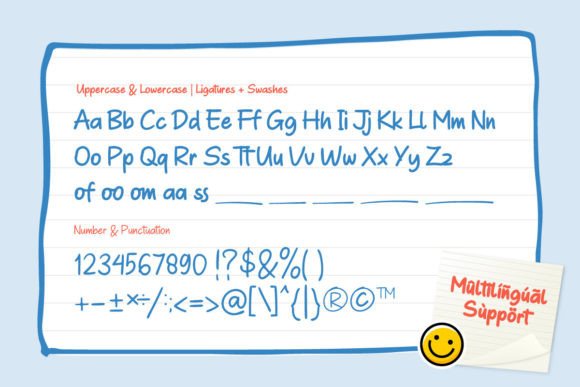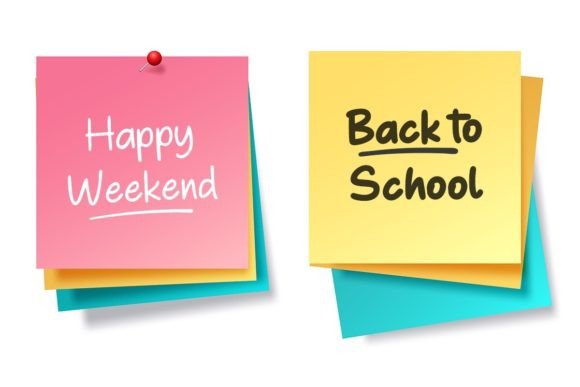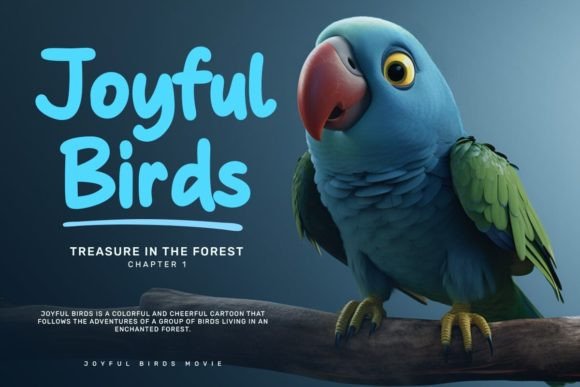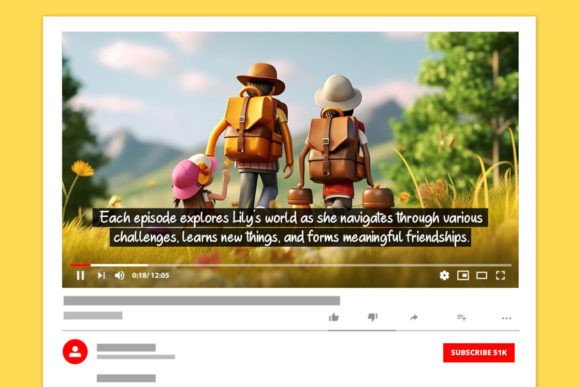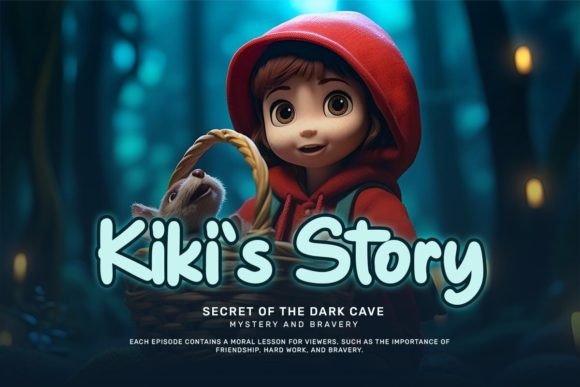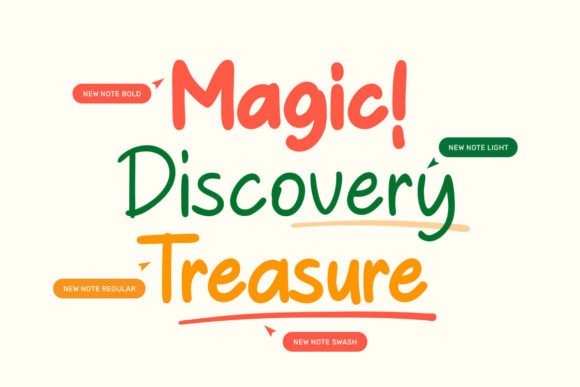
Unlock the Charm of Handwritten Notes with Bebas Note Font
Who hasn’t scribbled down notes by hand, watching as the words begin to take shape on the page? It’s a moment of pure creativity, a chance to connect with the text on a deeper level. And now, you can capture that essence with Bebas Note Font, a beautifully designed handwritten marker font that brings a touch of personalized charm to your projects.
This versatile font is perfect for designers looking to add a genuine hand-drawn feel to their work. With its smooth flow and natural elegance, Bebas Note Font is an excellent choice for a wide range of graphic projects, from digital notes and quote designs to book covers, logos, posters, and more.
Bebas Note Font Key Features
- Unique Characteristics: Bebas Note features a bold and modern sans-serif design, making it suitable for headings, titles, and display text
Bebas Note Font Review
I recently had the chance to work with Bebas Note Font, and I must say, it’s an interesting addition to any design project. ✨ One of the things that stood out to me was its unique, handwritten feel. The font is perfect for projects that need a personal, creative touch.
- Unique feel: Bebas Note Font has a distinct, handwritten style that sets it apart from more traditional fonts.
- Customization options: The font includes a range of styles, from light to bold, which makes it versatile for use in various design contexts.
- Legibility: The font is generally easy to read, even in smaller sizes.
However, there are some limitations to keep in mind. ⚠️ Bebas Note Font can be a bit rough around the edges, and some characters may not be as well-formed as others. Additionally, the font may not be the best choice for projects that require precise, technical text.
Overall, I think Bebas Note Font is a great choice for designers who want to add a touch of personality to their projects. While it may not be suitable for every design context, it’s definitely worth considering for projects that need a more creative, handwritten feel.
Getting the Most Out of Bebas Note Font
For best results, use Bebas Note Font in conjunction with a clean and minimalist design. It’s ideal for titles, headings, and short paragraphs. Experiment with different font sizes, colors, and styles to achieve the desired look.
Bebas Note Font is suitable for various design projects, including:
- Business cards and stationery
- Restaurant menus and signage
- Travel and adventure websites
- Music and event promotions